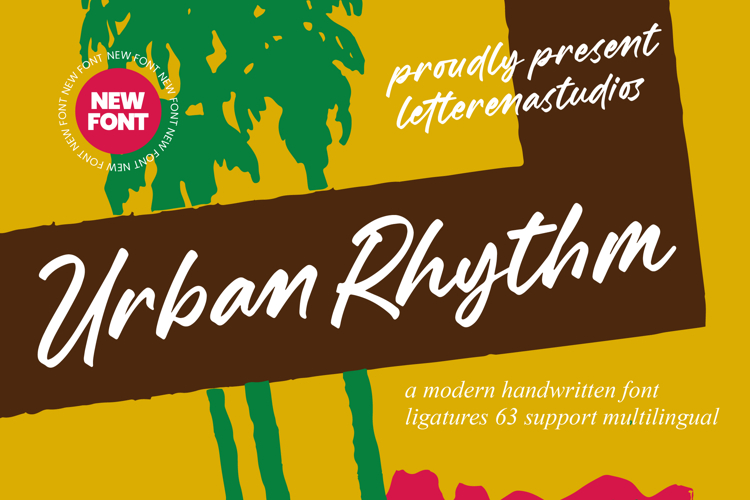
Urban Rhythm - Modern Handwritten Font
Elevate your creative projects with the effortless energy of Urban Rhythm - Modern Handwritten Font. This expressive script typeface captures the essence of contemporary street culture combined with a sophisticated aesthetic. Its fluid brush strokes create an authentic, hand-drawn feel that immediately grabs attention. By blending casual charm with professional polish, Urban Rhythm - Modern Handwritten Font ensures your designs stand out in any digital landscape.
Designed for versatility, this typeface is the perfect choice for luxury branding, dynamic social media, and high-impact packaging. Its spirited characters make it ideal for editorial design, apparel branding, and lifestyle photography overlays. Whether crafting a modern logo or a premium invitation, Urban Rhythm - Modern Handwritten Font provides the visual personality required to leave a lasting impression on your audience.